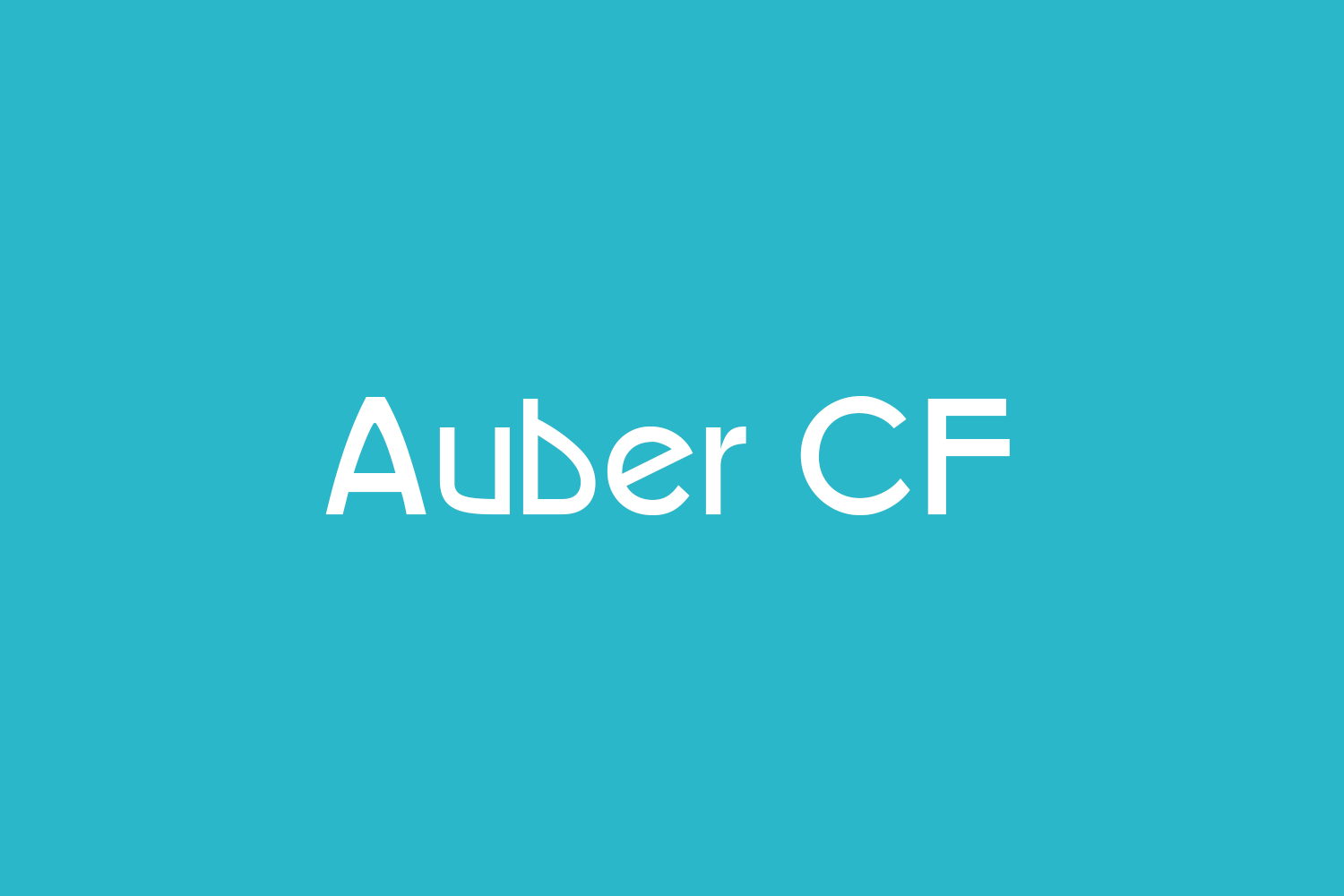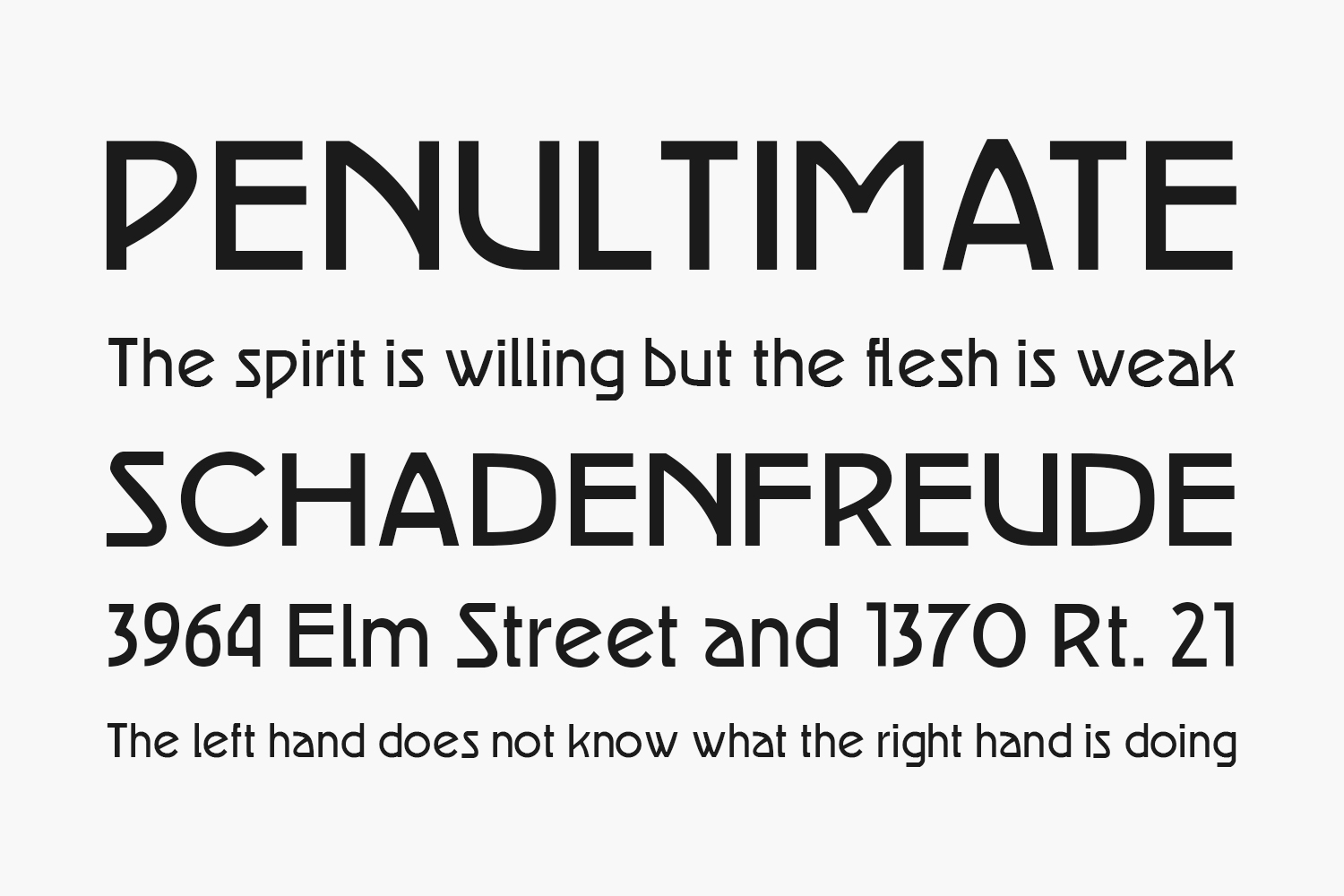
Auber CF Free Font Family is my revival, completely redrawn, of BOHEMIAN TYPE, a metal typeface I found in Printing Machinery and Material (Miller & Richard, 1902). AUBER is a sans serif display font which I expanded to 3 weights, Medium, SemiBold and Bold. I believe it would be most useful in poster, advertising, logo, headline, signage and greeting card design, especially when an elegant feel is desired. The hype in the catalog mentioned above is interesting: “Departures from the conventional has been attempted in the BOHEMIAN TYPE. In the designing and cutting our desire has been to secure clarity combined with individuality…yet possessing the freedom of the pen of the Artist without obtruding any offensive mannerisms.” In my opinion, they accomplished this. I think it is a beautifully designed font, sprinkled with unexpected shapes that give a text an extra vitality and glamour. In a word, pizazz. Take note especially of the “a”, “b”, “e”, “p”, and the alternate “q”.